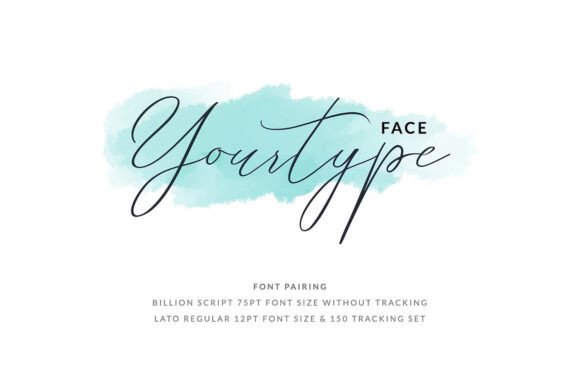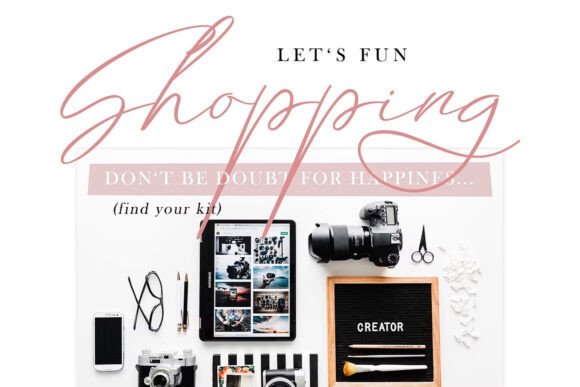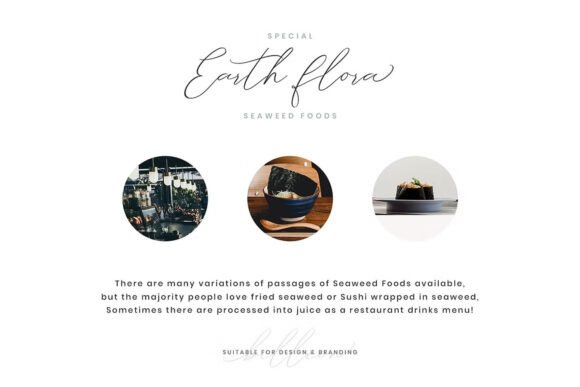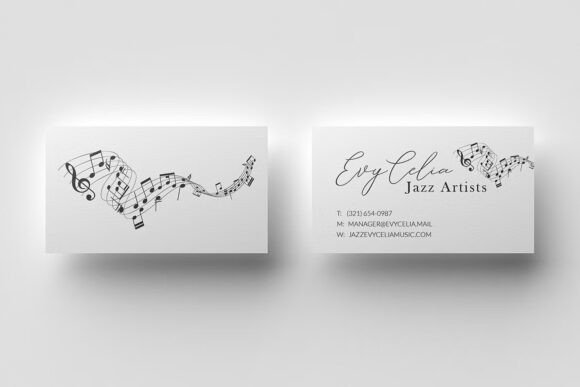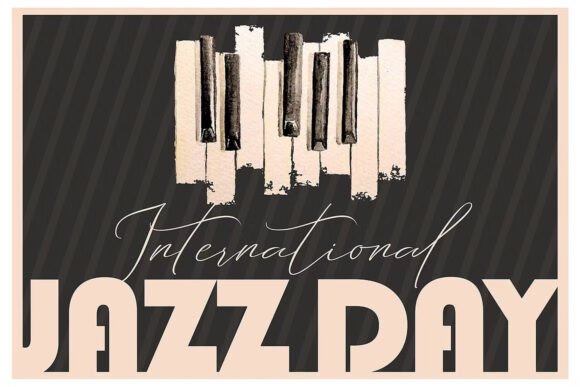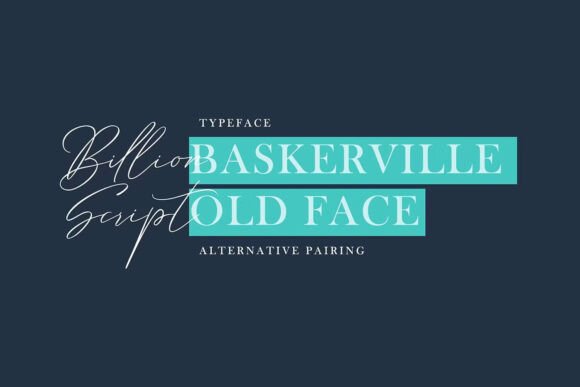
The Quest for the Perfect Font
You know that moment when you’re working on a project, and you just can’t seem to find the right font to tie everything together? It’s like searching for a needle in a haystack, until suddenly, you stumble upon it. For designers, this is a moment of pure joy, and it’s exactly what Billion Script aims to deliver.
Billion Script is a script font that’s designed to add a touch of elegance and sophistication to your creative endeavors. With 515 alternate and ligature glyphs, it’s the perfect tool for crafting compelling branding strategies, exquisite homeware designs, and more. Whether you’re looking to enhance product packaging, name cards, or invitation cards, Billion Font is a versatile design tool that’s sure to impress.
Billion Font Review
Overall, I have mixed feelings about Billion Font. On one hand, it has some great features that make it a solid choice for designers. ✨ One of the standout aspects is its versatility, with over 50 font styles and a wide range of weights, making it easy to find the perfect fit for your project.
Another plus is its high level of customization. You can adjust the font’s settings to suit your specific needs, from kerning to spacing. This level of control is a game-changer for designers who want to create truly unique and polished typography.
Unfortunately, Billion Font also has some limitations that prevent it from being a top-tier choice. ⚠️ One of the biggest drawbacks is its limited support for advanced typography features. If you’re working on a project that requires complex font management, you may find yourself wishing for more.
- Limited support for advanced typography features
- Some font styles may appear inconsistent or uneven
- No built-in support for font ligatures
Overall, I would give Billion Font 3 out of 5 stars. While it’s a solid choice for designers who want a versatile and customizable font, it falls short in terms of advanced typography features. If you’re working on a project that requires more advanced font management, you may want to consider other options.
Some popular use cases for Billion Font include:
- Creating eye-catching headlines and titles.
- Designing luxury brand logos and packaging.
- Adding a touch of elegance to wedding invitations and stationery.